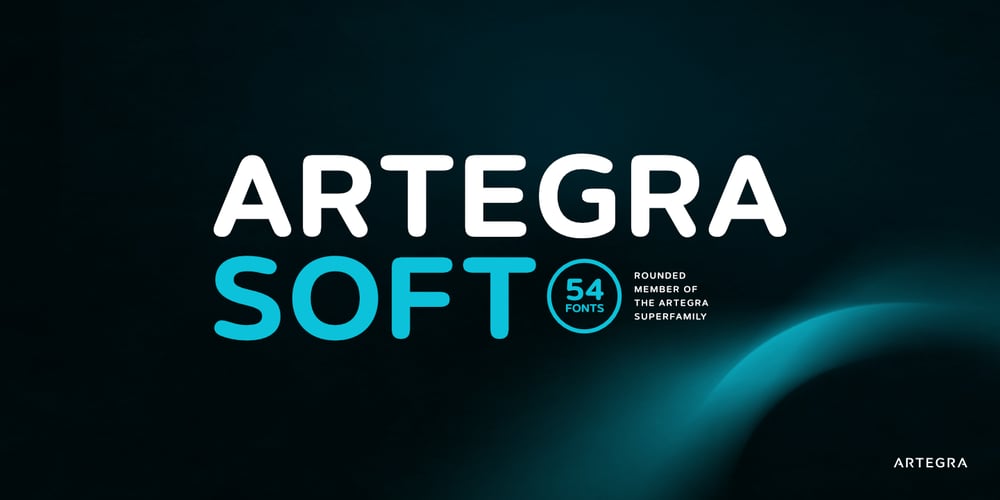
Artegra Soft Font Family was designed by Ceyhun Birinci and published by Artegra. Artegra Soft contains 54 styles and family package options. Artegra Soft is the round cornered addition to the Artegra superfamily. It’s based on the perfectionist geometric forms of Artegra Sans, all the glyphs are softened with round corners with manual corrections to the soft edges. The family has 54 fonts in condensed, normal and extended widths, 9 weights per width with matching true italics to achieve the upmost versatility.